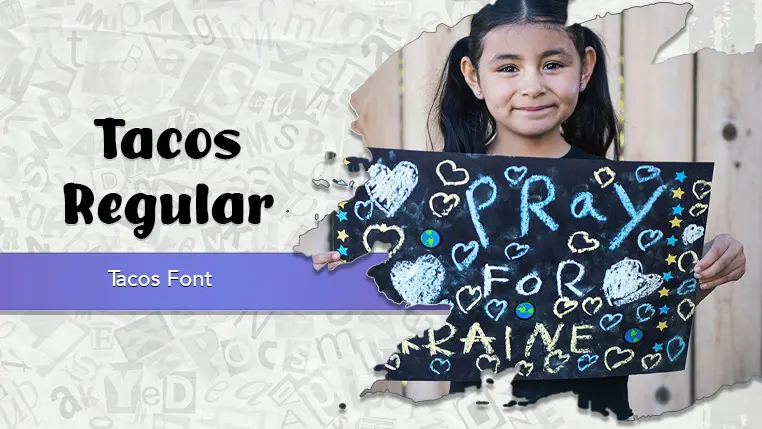
The Tacos font family may be ideal for you if you enjoy working on an artistic design project. The lively, expressive look of this typeface, which was created by Rian Rahardi, makes it ideal for Branding and logos. The bold and decorative nature of the font makes it great for headlines and titles on event posters, menus, and promotional materials. It's well-suited for product packaging, especially for food items, to give them a homemade and authentic feel. Tacos font works well for t-shirt designs and other clothing, particularly for creating fun, themed apparel. Its vibrant and engaging style is perfect for creating social media posts that stand out. and other light-hearted visual projects.
Regular are the one primary font styles of the Tacos font family. You may build dynamic, visually appealing text layouts with the distinct flair that each style offers. With crisp, readable lines and a relaxed tone.